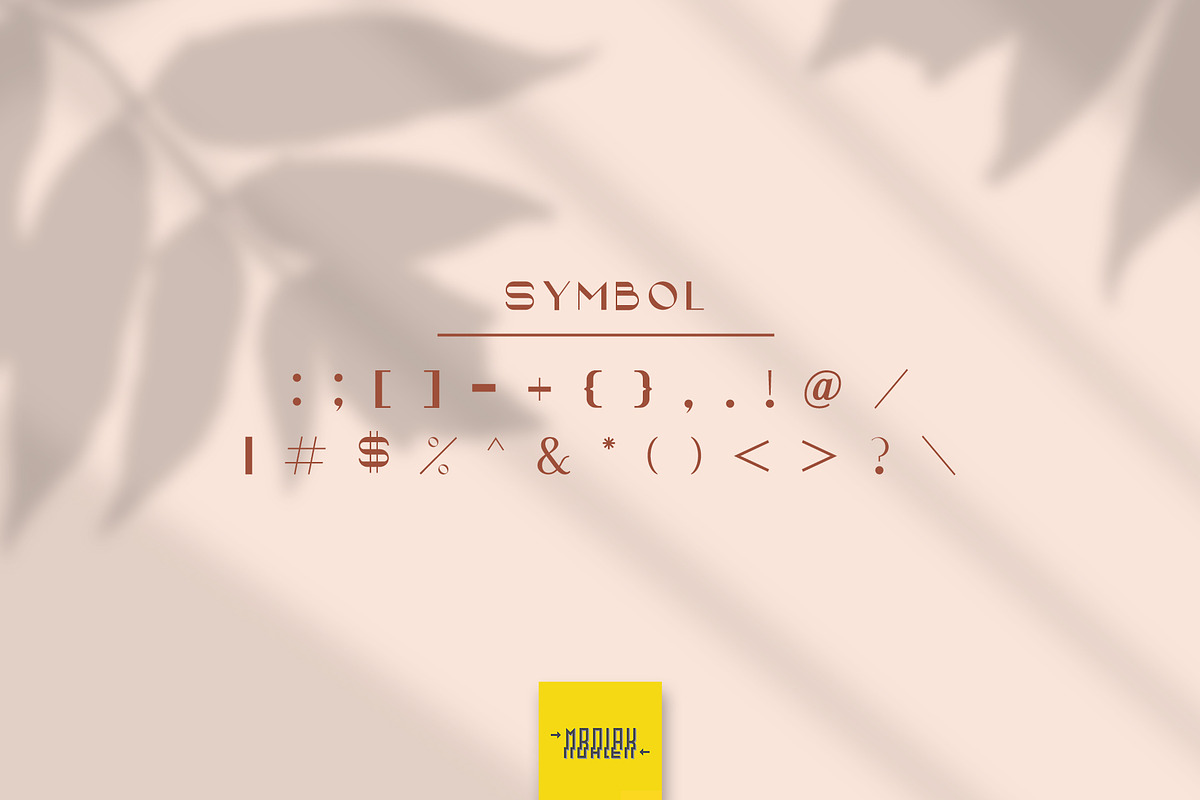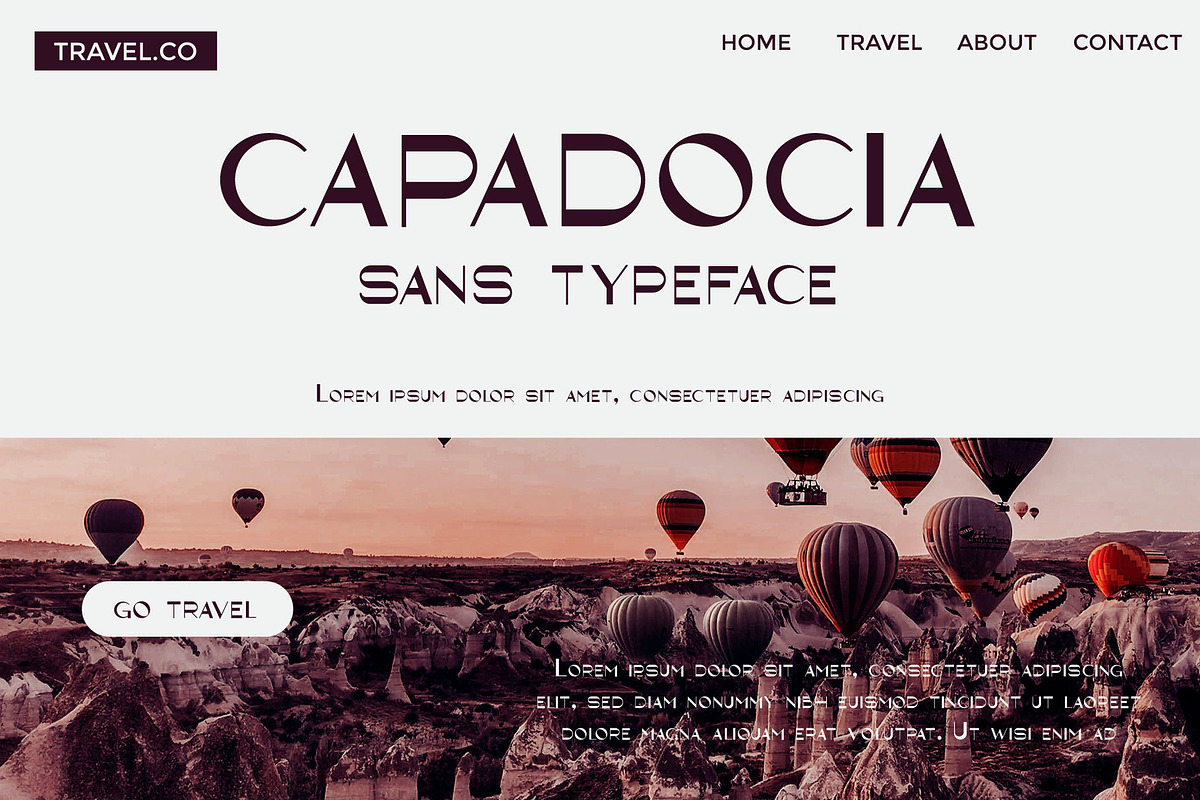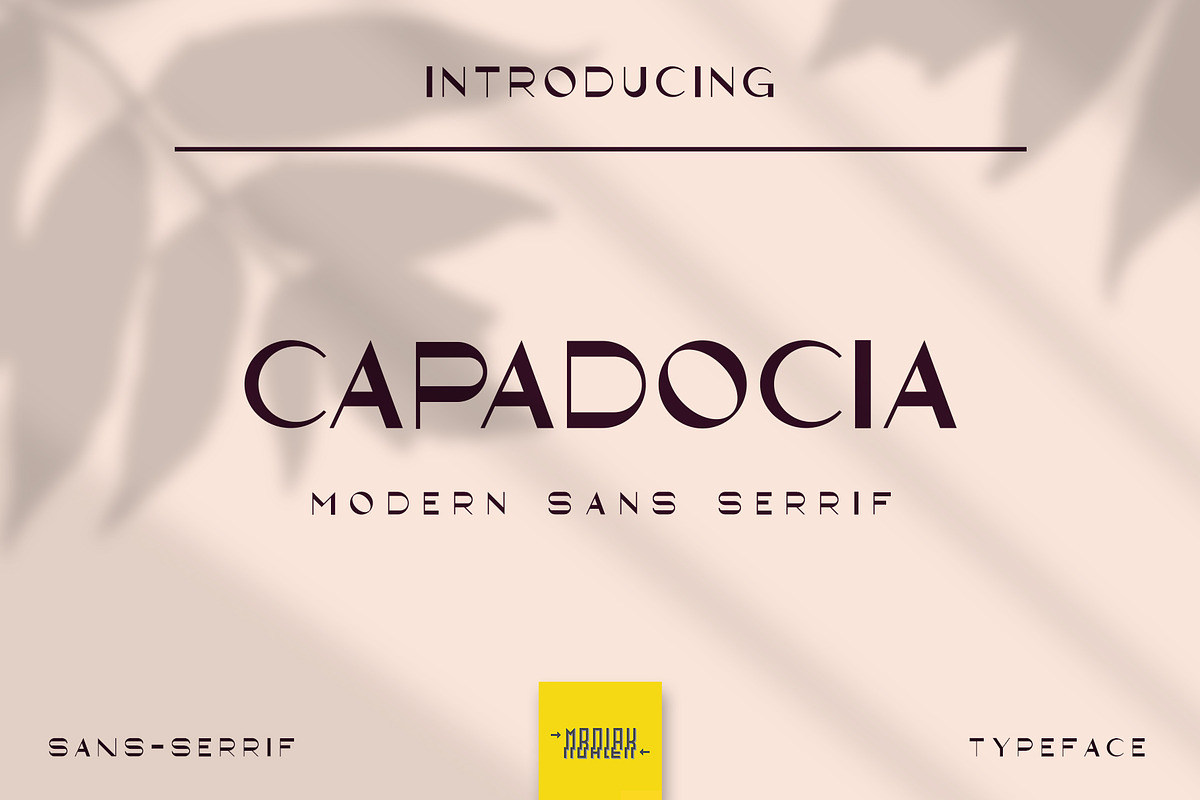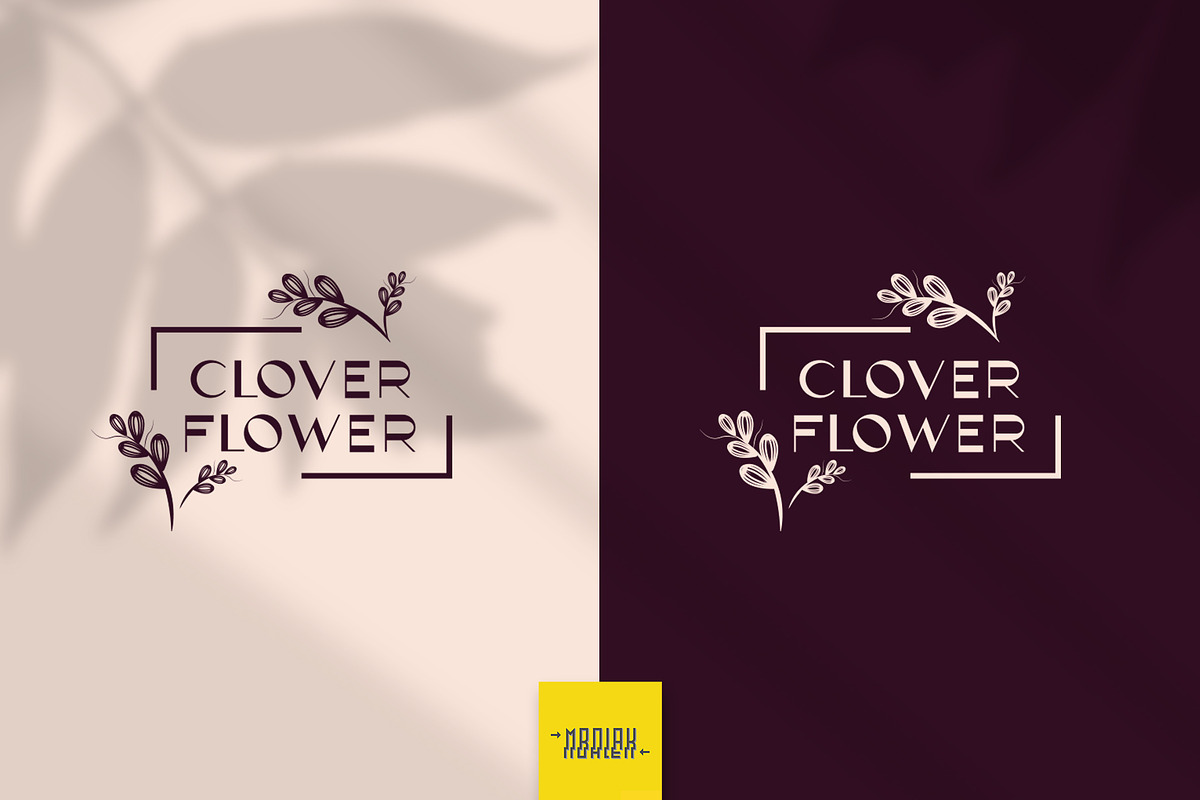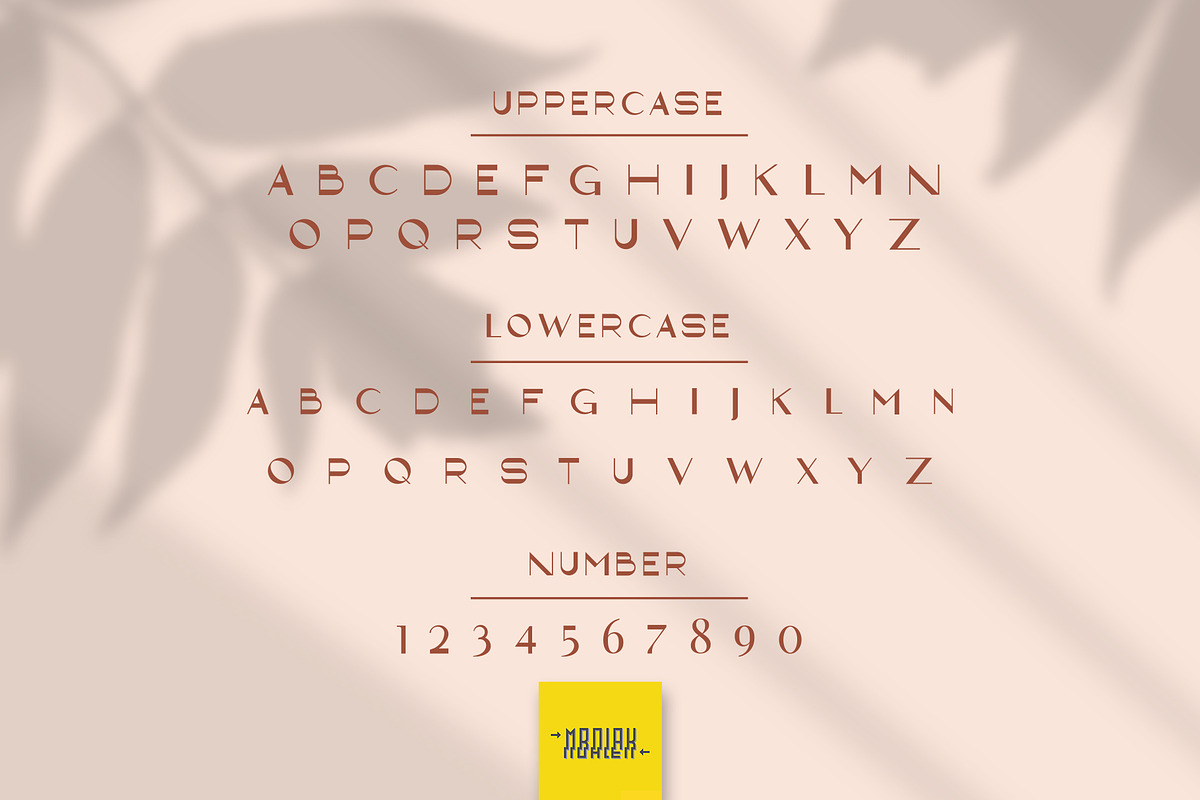
Capadocia sans - Modern & Elegant
UPDATE CAPADOCIA FONT
- Include Ligature
- Renew Kerning
Proud to introduce a new font: CAPADOCIA. This font comes with a Modern & Elegant Font Sans Serif (Regular). You can see in the preview above.
CAPADOCIA Fonts will be perfect for a variety of projects such as logos & branding, invitations, posters, flyers, wedding designs, social media posts, advertisements, product packaging, product designs, labels, photography, watermarks, special events or movie poster titles, like what I do in the preview above.